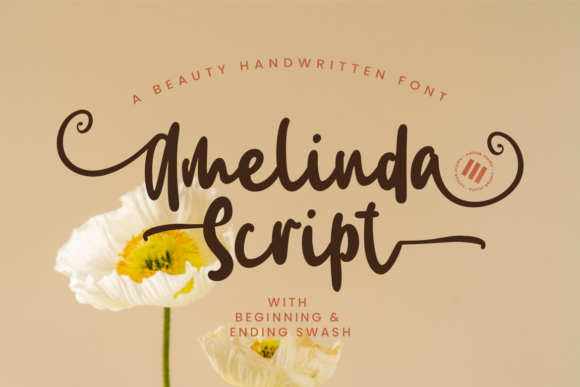
At Colllab Studio, we've meticulously crafted Amelinda Script, a font that exudes elegance and sophistication with its vintage-inspired design. This beautifully balanced script font captivates with its smooth curves and timeless charm. Amelinda Script is the perfect choice for those seeking a font that radiates grace and authenticity.
Immerse yourself in the world of fashion branding and editorial designs, where Amelinda Script shines as a radiant beacon of creativity. Its enchanting characters dance across the page, evoking a sense of nostalgia and allure. Whether you're designing logos, invitations, or social media posts, Amelinda Script effortlessly elevates your creations with its timeless appeal.
Beyond its aesthetic brilliance, Amelinda Script is an incredibly versatile font. With PUA encoding, you can effortlessly access a treasure trove of glyphs and swashes, granting you boundless creative possibilities. Unleash your imagination and craft designs that captivate and mesmerize.
With Amelinda Script, your wedding invitations will transcend the ordinary. The font's delicate strokes and refined style bestow an air of elegance upon every word. Create invitations that mirror the beauty and significance of your special day.
Amelinda Script is more than just a font; it's an artistic masterpiece that transforms your designs into captivating visual expressions. Experience the allure of Amelinda Script and elevate your creative endeavors to remarkable heights.